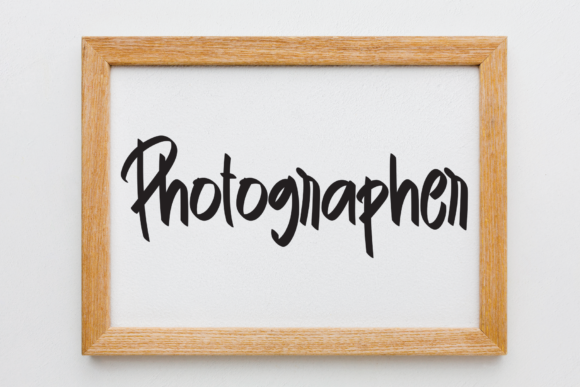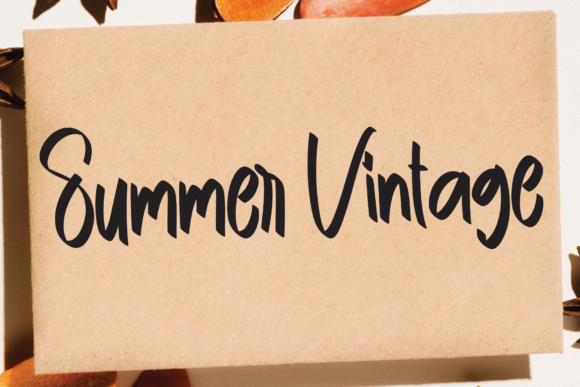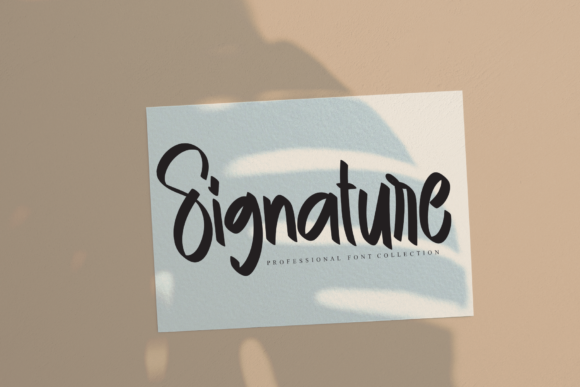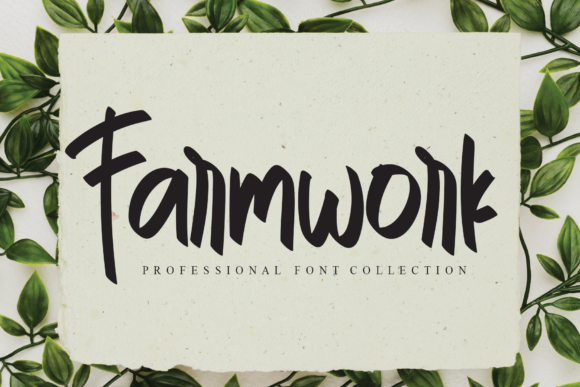
Paper Signature Font
Paper Signature is a cute, quirky and friendly handwritten font. Featuring characters that dance along the baseline, this font will add a luxury spark to any design project that you wish to create!